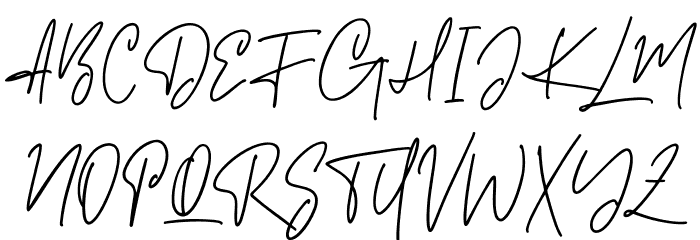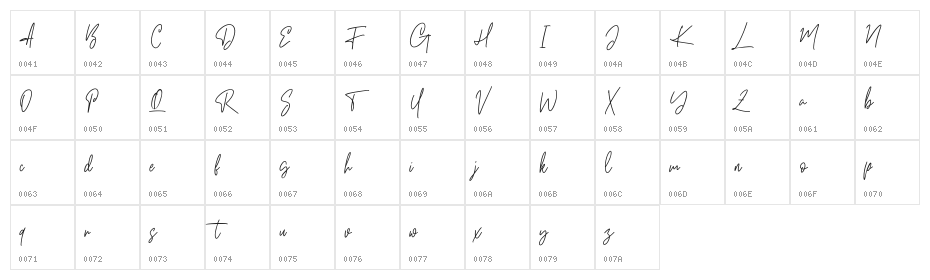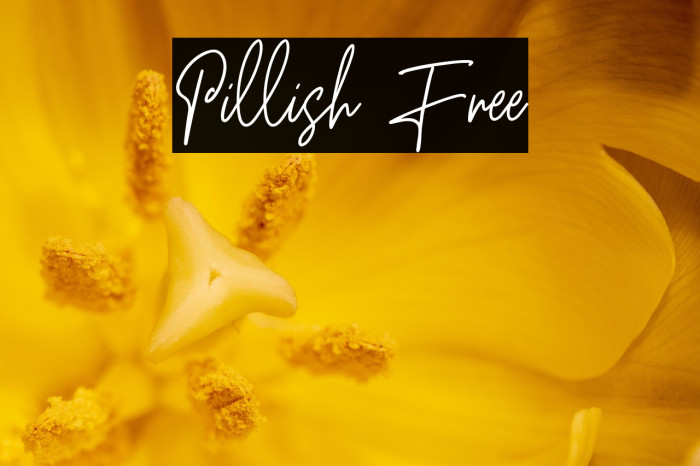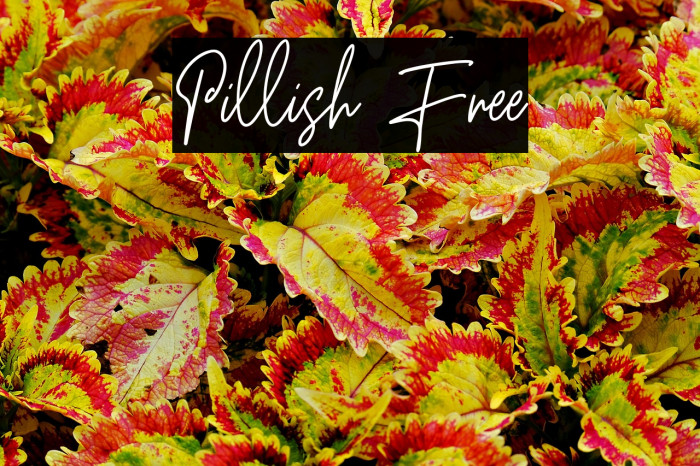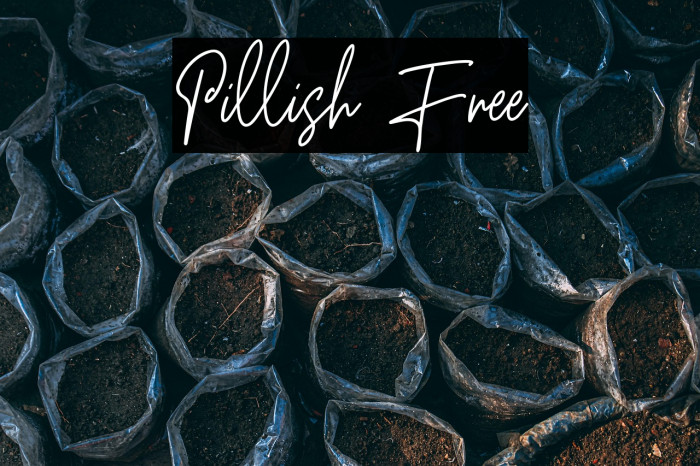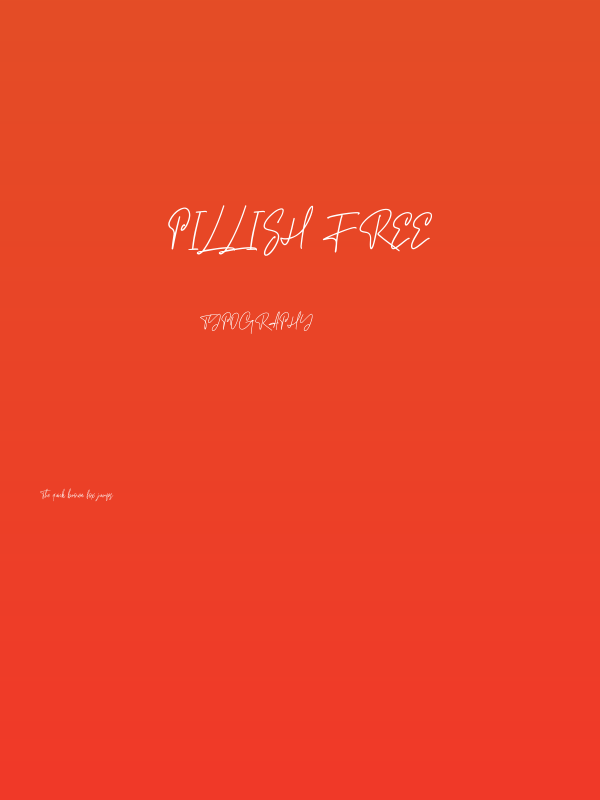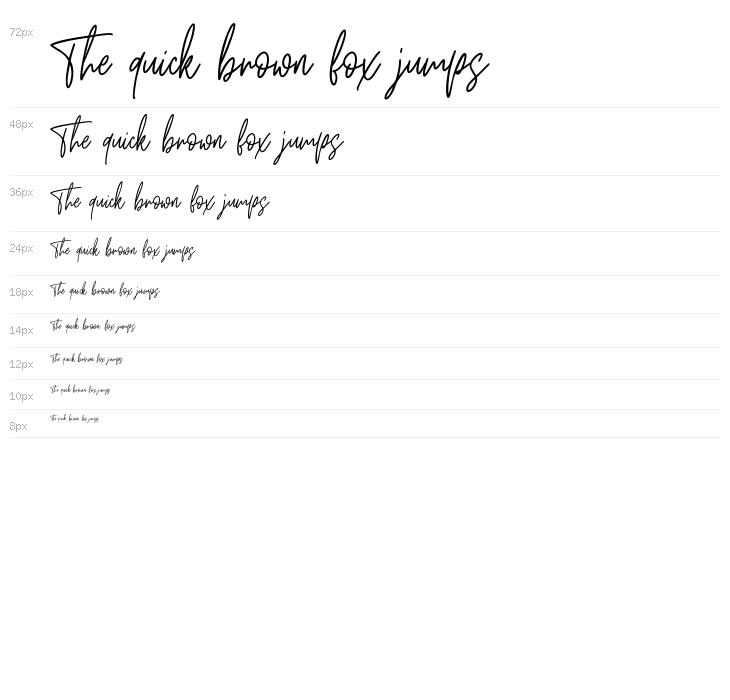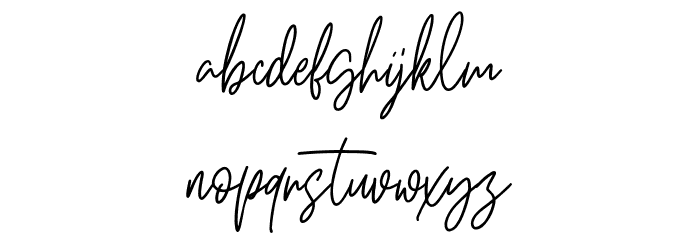
Pillish Free Font
Pillish Free Description
This font exudes a modern and elegant handwritten style, characterized by its fluid and continuous strokes. The letters are crafted with a sense of movement and grace, giving it a personal and artistic touch. The uppercase letters are bold and expressive, while the lowercase letters maintain a consistent flow, enhancing readability. The font's unique charm lies in its ability to convey a sense of sophistication and creativity, making it ideal for projects that require a personal and artistic flair. The overall design is both stylish and versatile, suitable for a variety of design applications.
| Proposed Projects | Ideal for wedding invitations, personal branding, greeting cards, and artistic projects. |